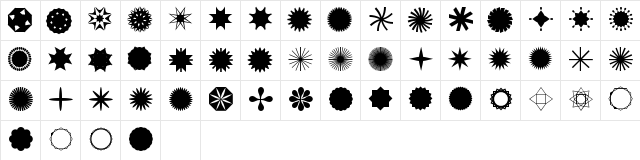
Star Time JL Regular
Design Context for Star Time JL Typeface
Star Time JL is a composed and adaptable typeface that performs quietly and consistently across a wide range of design contexts.